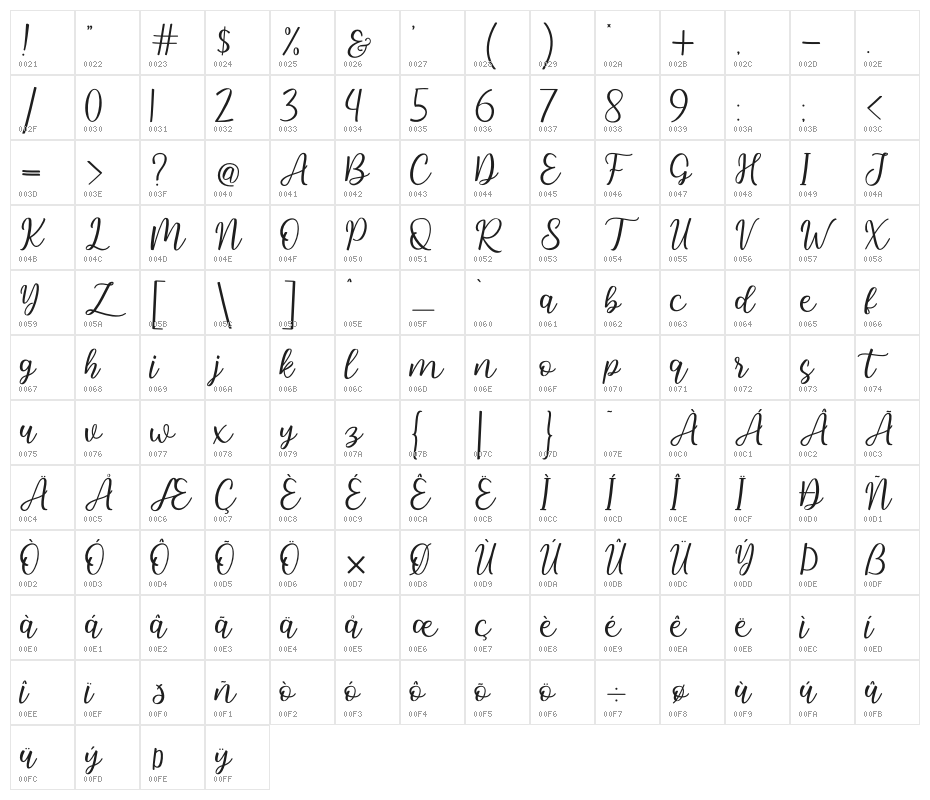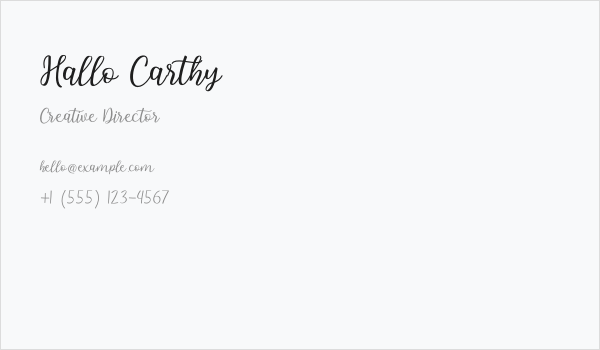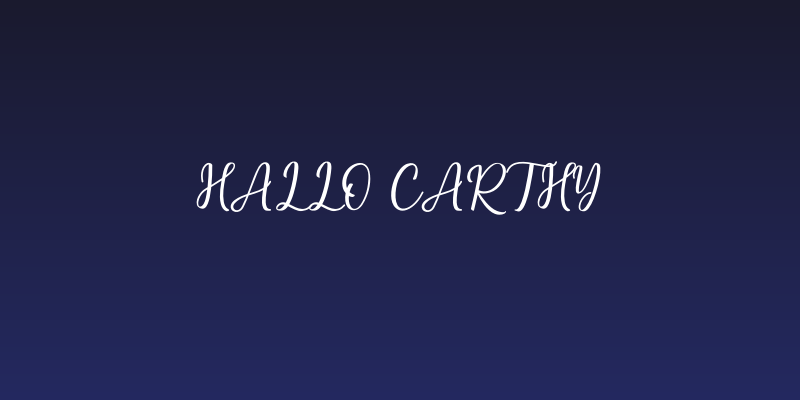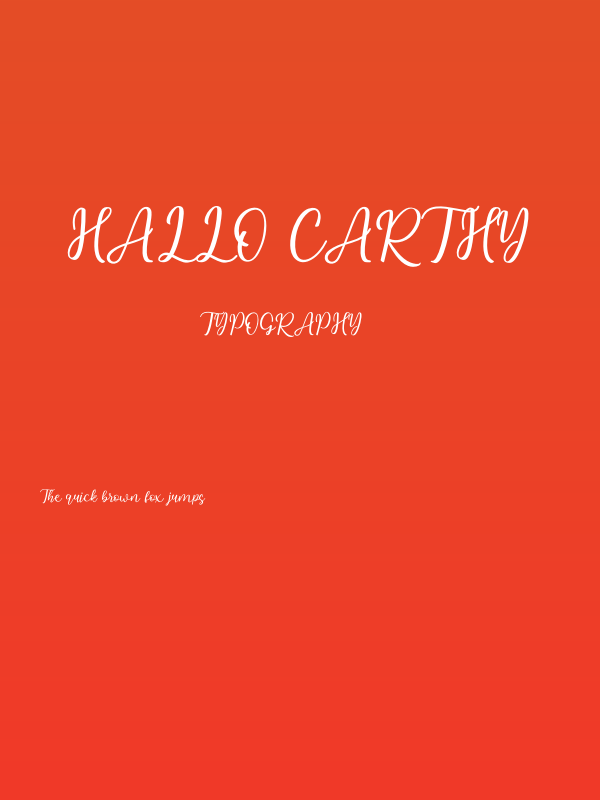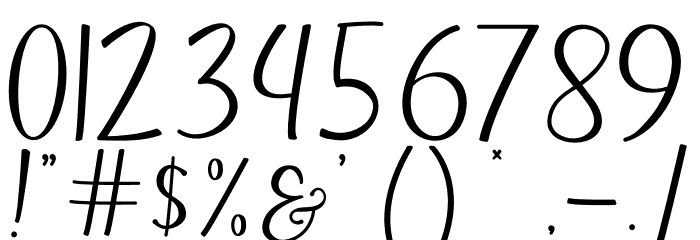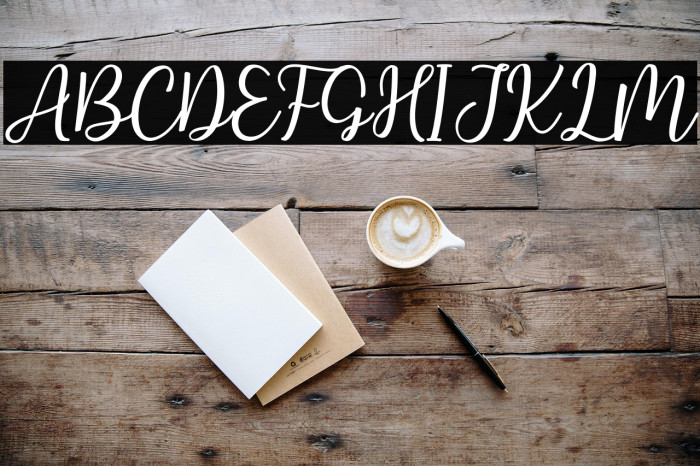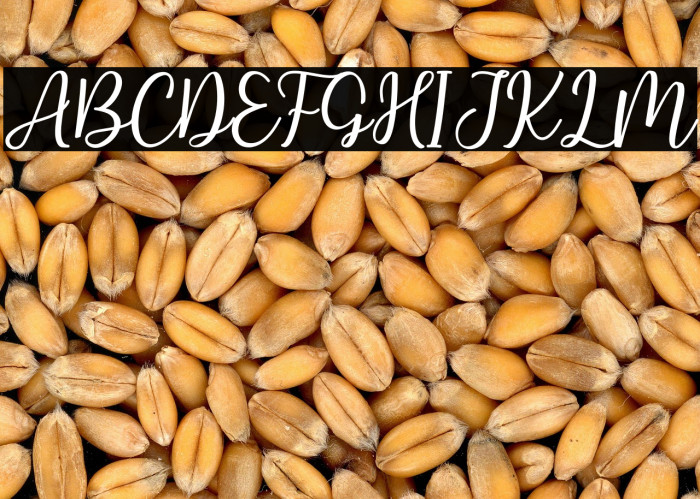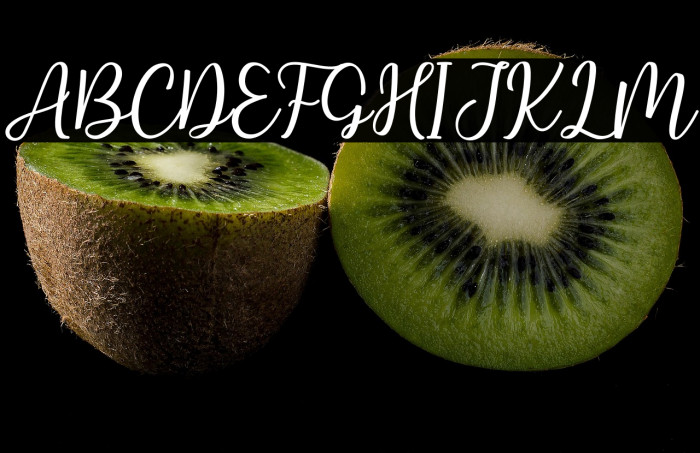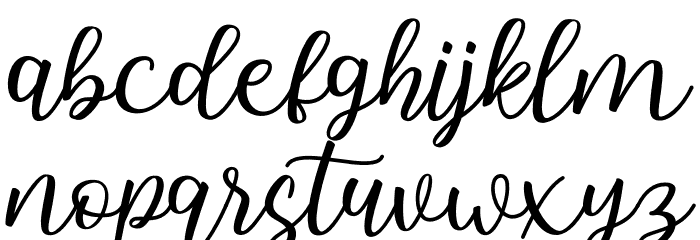
Hallo Carthy Font
Hallo Carthy Description
This font features a lively and flowing script style, characterized by its elegant curves and smooth connections between letters. The uppercase letters are tall and slightly slanted, adding a sense of movement and grace. The lowercase letters maintain a consistent flow, with some letters featuring loops and flourishes that enhance the overall aesthetic. The numerals are bold and clear, maintaining the script style while ensuring readability. Special characters are thoughtfully designed to match the font's overall style, making it versatile for various uses.